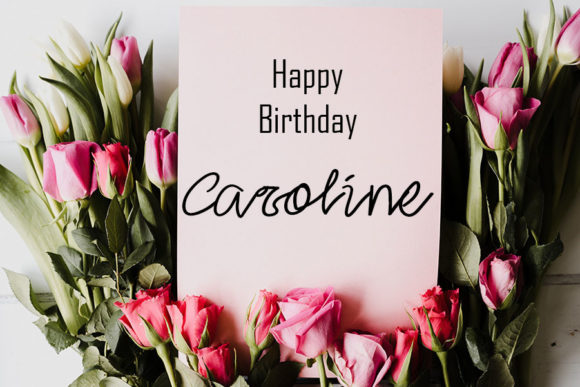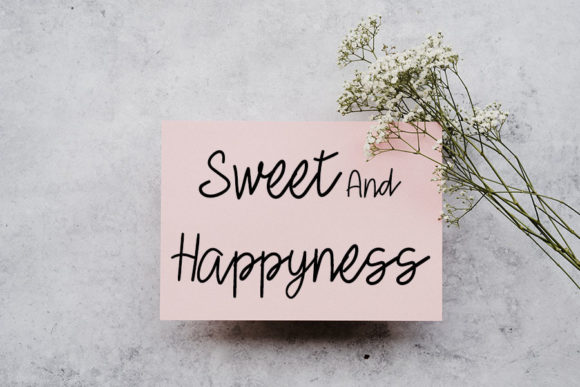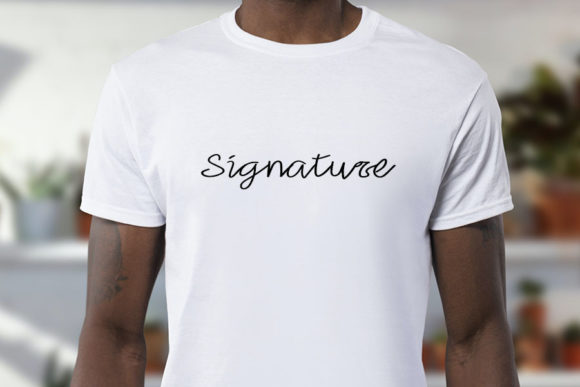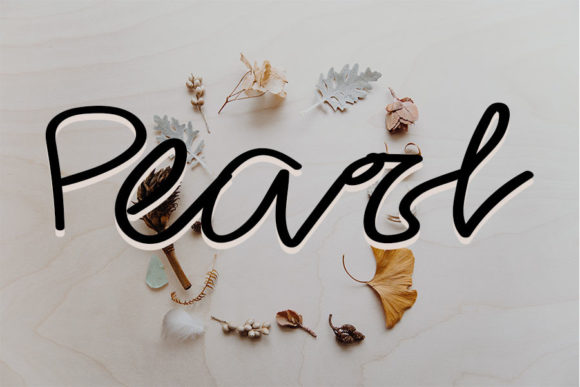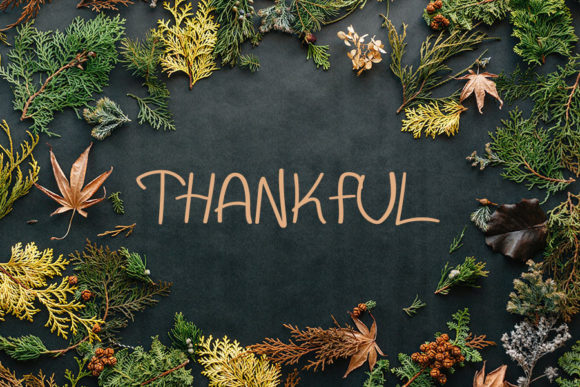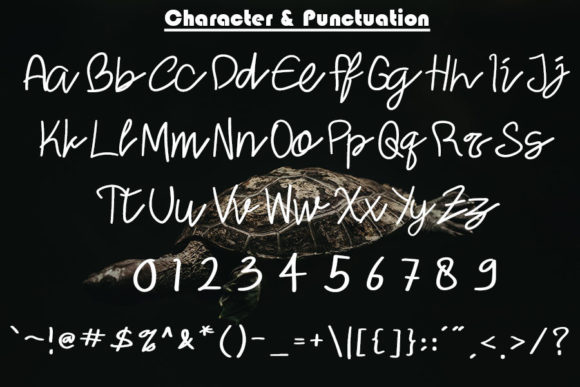
Introduction to Silky Girl Font
Have you ever found yourself stuck in a creative rut, struggling to find the perfect font to bring your design project to life? We’ve all been there – scrolling through font libraries, trying to find that elusive combination of style and elegance. But what if I told you that there’s a font that can instantly elevate your design and leave a lasting impression?
Meet Silky Girl Font, the elegant handwritten font that’s about to become your new go-to design resource. With its flexibility and neat style, Silky Girl Font is the perfect addition to any creative project, whether you’re working on a personal or professional design.
Key Features of Silky Girl Font
- Unique, elegant script font with a transparent background, perfect for adding a touch of sophistication to any design.
- Designed to be highly legible, making it perfect for use in invitations, wedding stationery, and other special occasion designs.
Honest Review: Silky Girl Font
I recently came across the Silky Girl Font, and I must say it’s been a game-changer for my design projects. The font is available as a free download, which is always a plus. Upon closer inspection, I noticed the high quality of the font, which is perfect for any creative project.
What works well: ✨ The Silky Girl Font has a transparent background, making it easy to use in various design applications. The font’s elegant and feminine design is perfect for any project that requires a touch of sophistication. Additionally, the font is highly versatile and can be used for a wide range of creative projects.
Overall, I’m impressed with the Silky Girl Font. It’s a valuable design resource that’s perfect for personal projects or designs that require a touch of elegance. If you’re looking for a high-quality font for your creative project, I’d definitely recommend checking out the Silky Girl Font.
Here are some key features of the Silky Girl Font:
- High-quality font with a transparent background
- Elegant and feminine design
- Perfect for personal projects or designs that require a touch of sophistication
Tips for Getting the Most Out of Silky Girl Font
To get the most out of the Silky Girl Font, try using it in combination with other design resources, such as graphics and images. You can also experiment with different font sizes and styles to create a unique look.
The Silky Girl Font is commonly used in creative projects such as branding, packaging, and advertising. It’s also great for use in digital designs, such as social media graphics and website headers.
Q: Is the Silky Girl Font a high-quality font, suitable for use in professional design projects?
Yes, the Silky Girl Font is a high-quality font, designed to meet the needs of professional designers and creatives. It features a clean, elegant design that is perfect for use in a wide range of design projects, from corporate branding to creative campaigns.